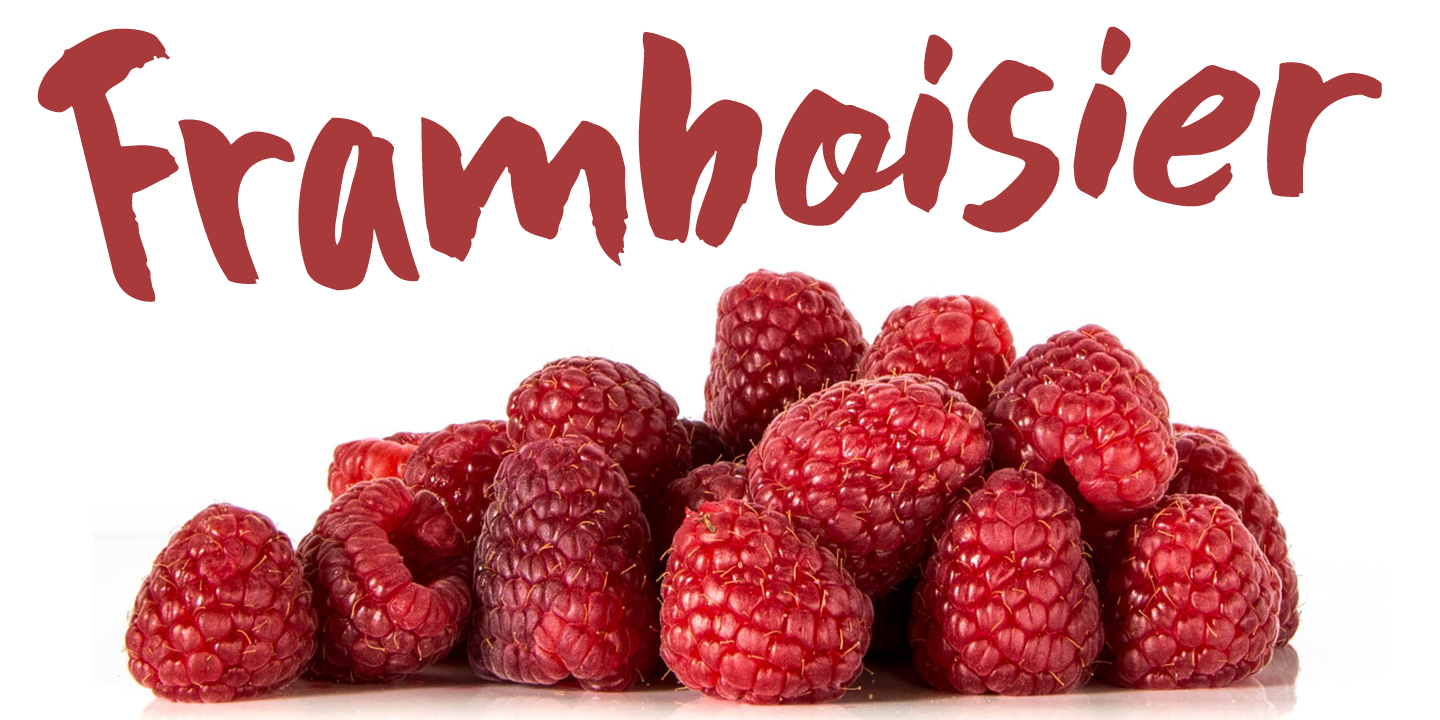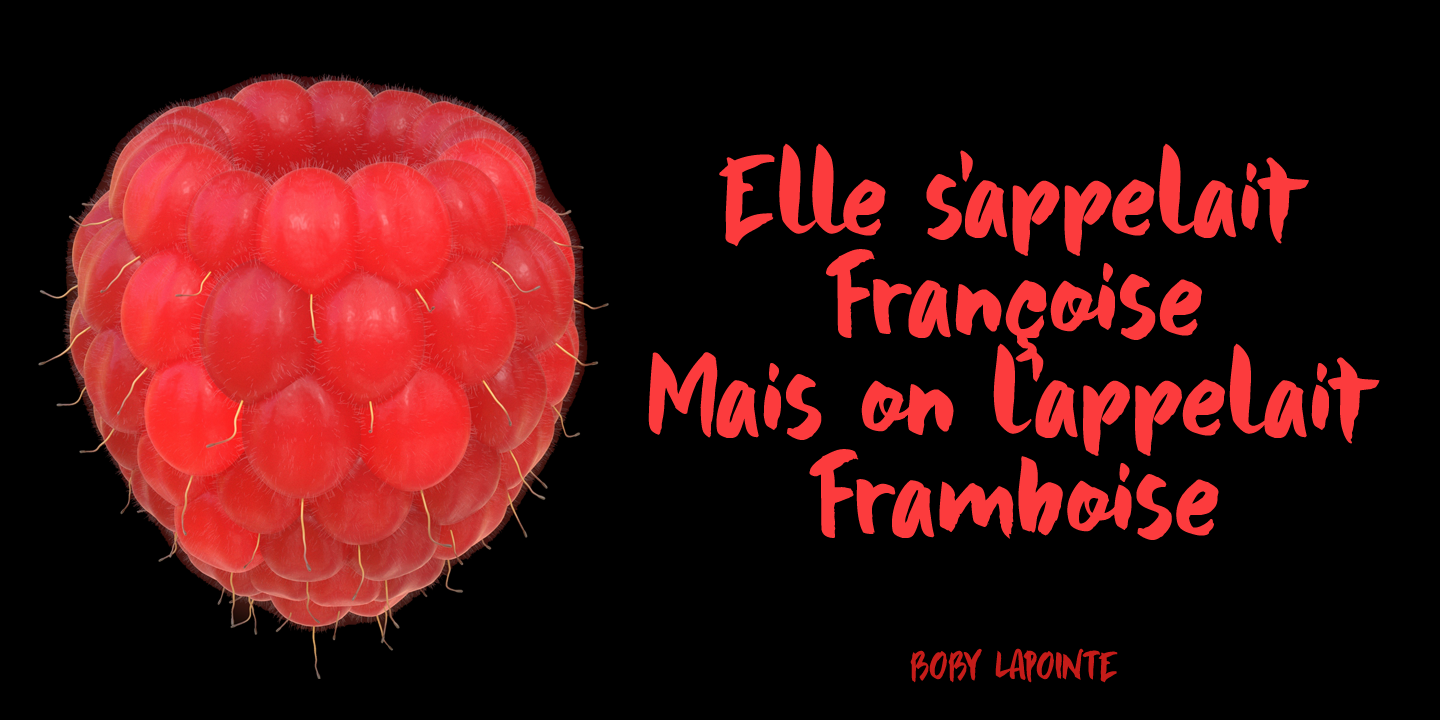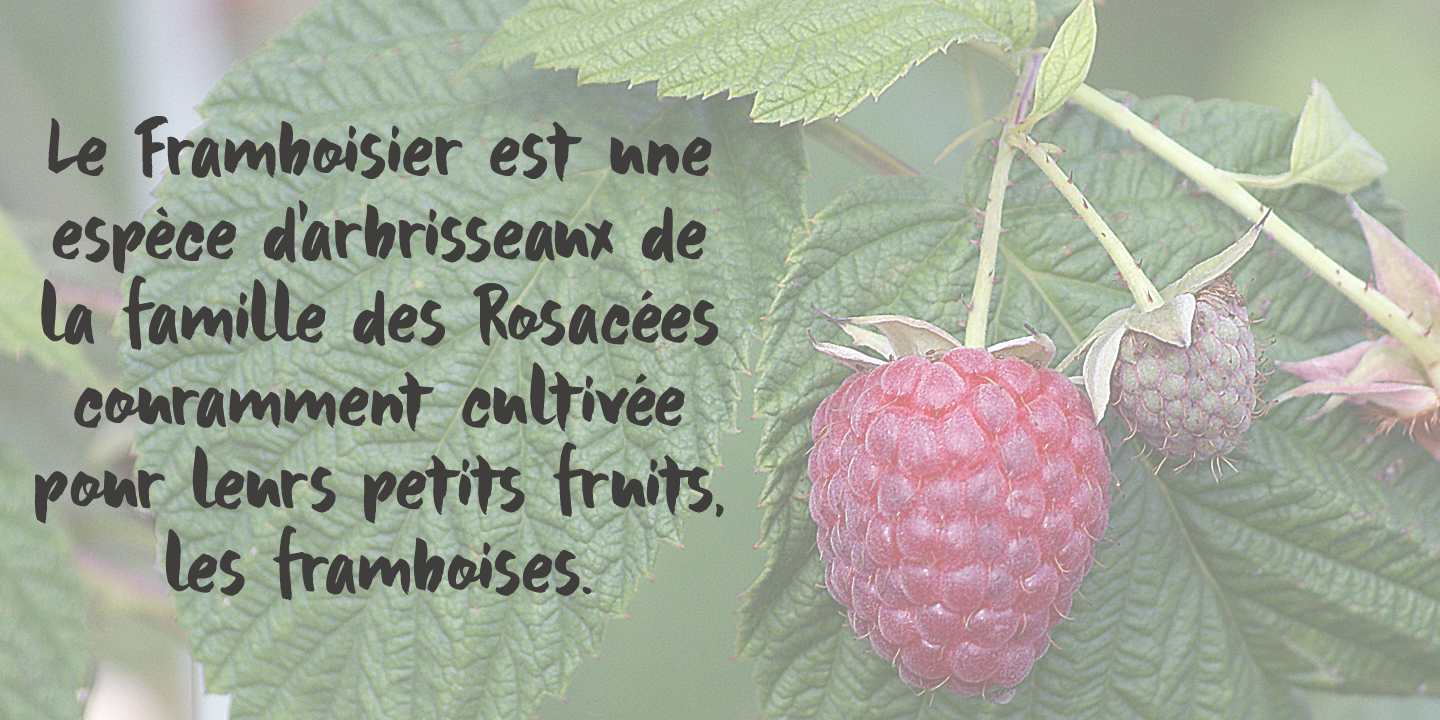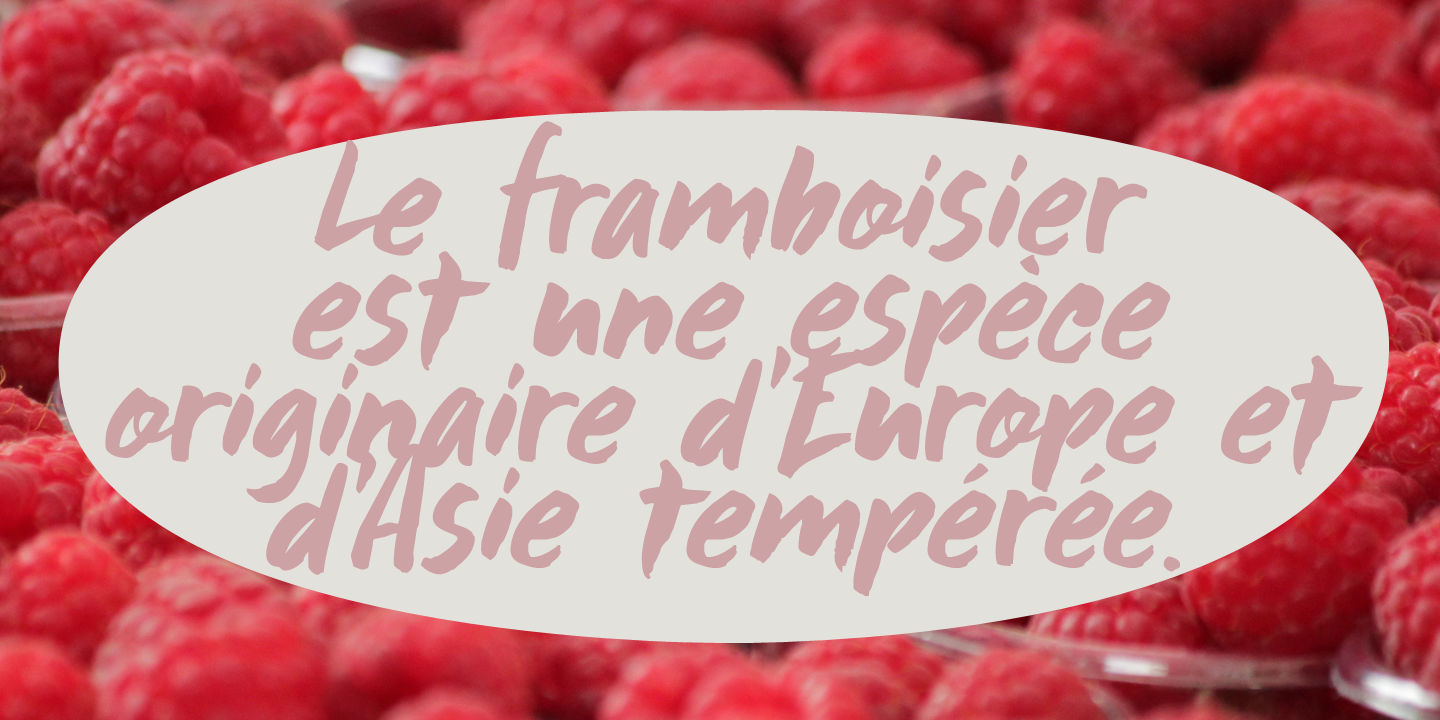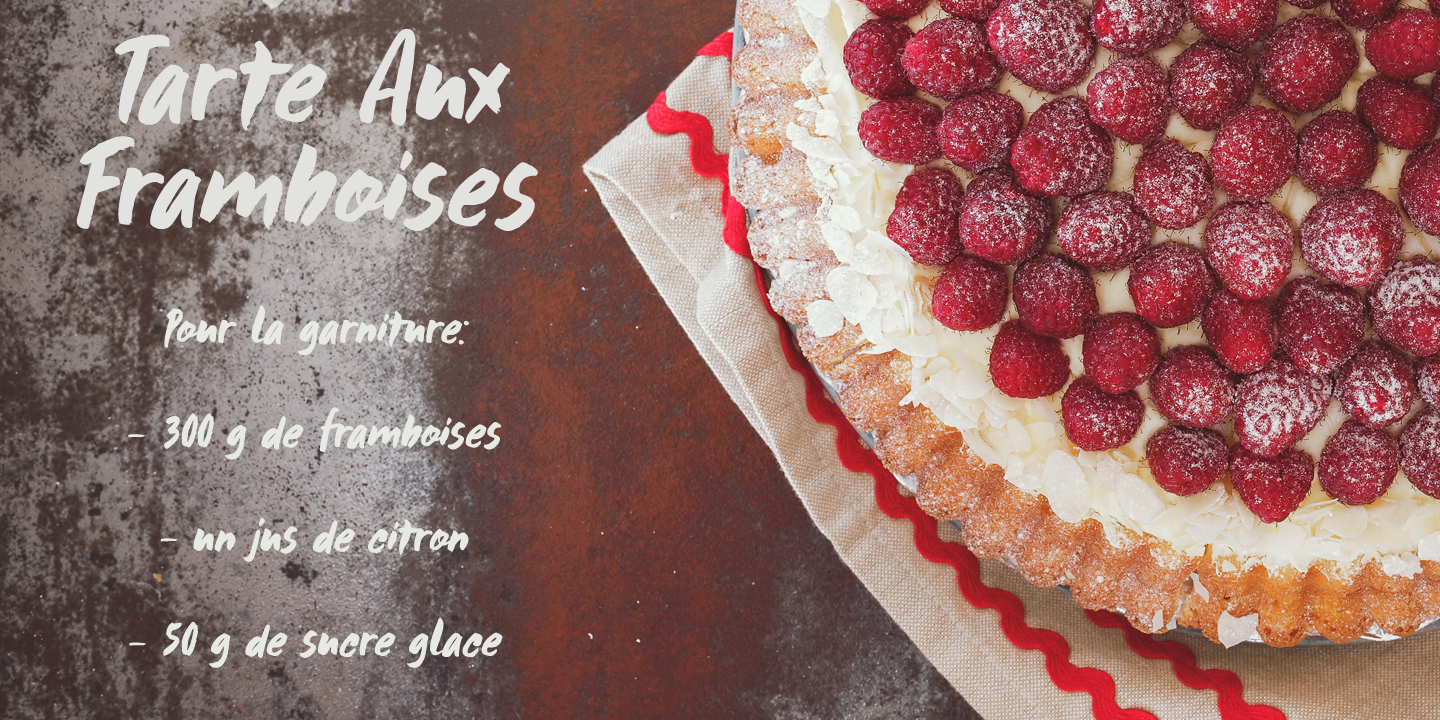
Framboisier Family (2 fonts)
Framboisier is a hand painted script font. It’s a little messy, a little shaky, but legible and cute as well. Comes with all the diacritics and a whole bunch of alternate glyphs.